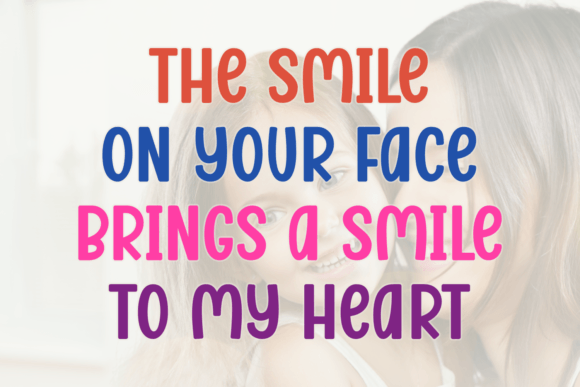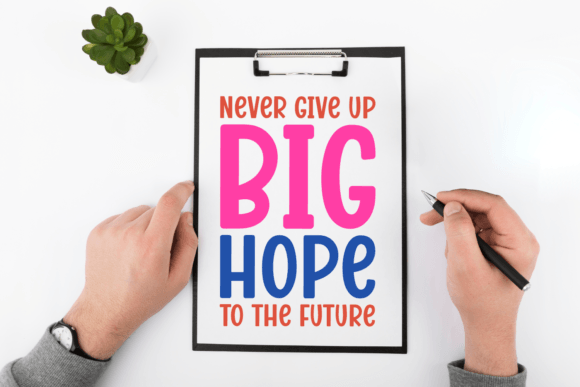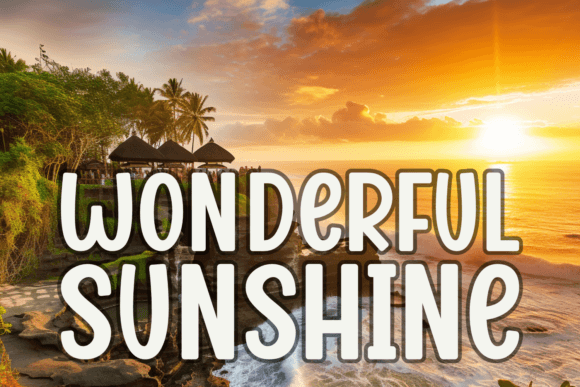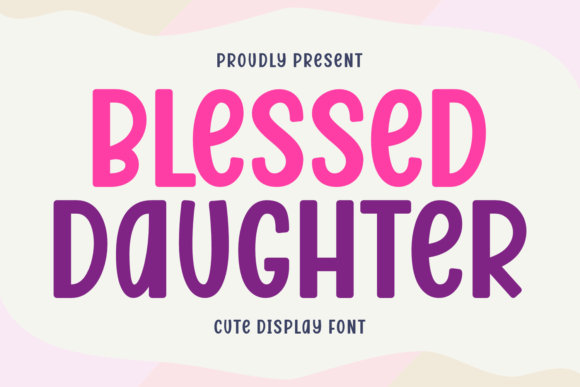
The Blessed Daughter Font: A Cute and Playful Display Font for Creative Projects
I’ll never forget the time I was working on a children’s book project, and I just couldn’t seem to find the right font. My client wanted something that was both fun and educational, but I was coming up blank. That’s when I stumbled upon the Blessed Daughter font, and it was love at first sight! 💕
This adorable display font has become a staple in my design toolkit, and I’m excited to share its awesomeness with you. In this article, we’ll dive into the world of Blessed Daughter, exploring its features, uses, and even some practical tips on how to make the most of it.
- ✅ Cute and playful: Blessed Daughter is perfect for projects that require a friendly, approachable vibe.
- ✅ Highly versatile: This font can be used for a wide range of design projects, from children’s books and illustrations to posters, branding, and social media graphics.
- ✅ Easy to read: Despite its playful nature, Blessed Daughter remains clear and legible, even at smaller font sizes.
- ⚠️ Limited use for formal projects: Due to its playful nature, Blessed Daughter might not be the best fit for formal or professional projects that require a more serious tone.
- ⚠️ Some letters may require manual kerning: As with any font, you might need to adjust the kerning for certain letter combinations to achieve optimal results.
Blessed Daughter was designed with the intention of creating a font that would bring joy and playfulness to design projects. The designer aimed to craft a font that would be both fun and legible, making it perfect for a wide range of creative applications.
Q: What type of projects is Blessed Daughter best suited for?
A: Blessed Daughter is perfect for children’s books, illustrations, posters, branding, packaging, greeting cards, invitations, social media graphics, quotes, and headlines.
Q: Does Blessed Daughter support OpenType features?
A: Yes, Blessed Daughter supports OpenType features, including stylistic alternates, glyphs, and more.